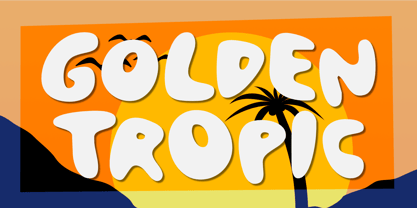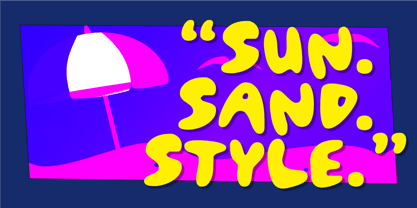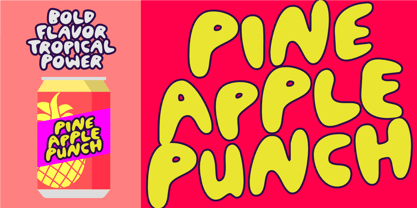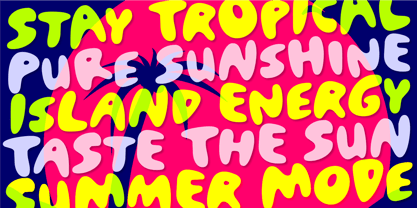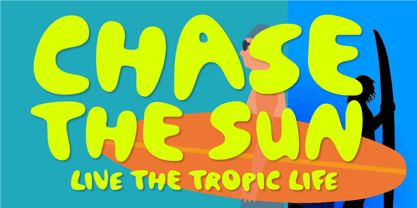
Golden Tropic
by Epiclinez
The Golden Tropic Font Family was designed by Aldy Sidik and published by Epiclinez. Golden Tropic contains 1 styles. More about this family
Golden Tropic is a bold display font inspired by sun-drenched beaches, tropical heat, and golden summer energy. Designed to stand out instantly, this font delivers thick, confident letterforms that feel warm, fun, and powerful at the same time. With its chunky strokes and strong presence, Golden Tropic is perfect for eye-catching headlines, product packaging, branding, posters, movie titles, and social media graphics. Whether you’re building a tropical beverage label, summer fashion brand, travel poster, or vibrant logo, this font brings bold island vibes with premium impact. Golden Tropic shines best in large sizes and high-contrast layouts, making it ideal for modern branding that needs to feel energetic, playful, and unforgettable. If your project needs sunshine, attitude, and bold personality—Golden Tropic delivers.
Designers: Aldy Sidik
Foundry: Epiclinez